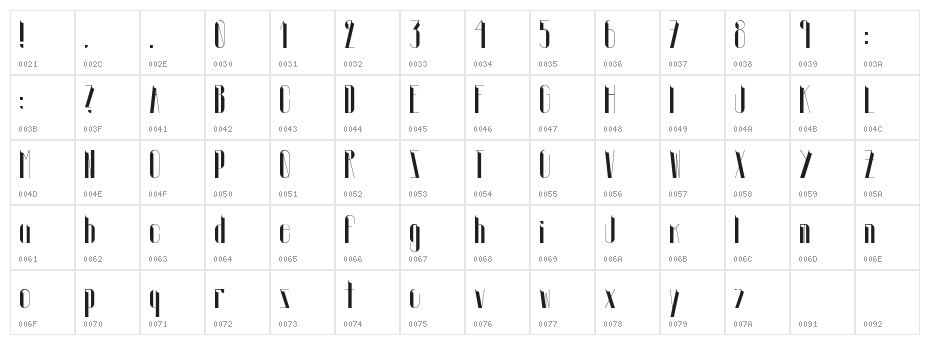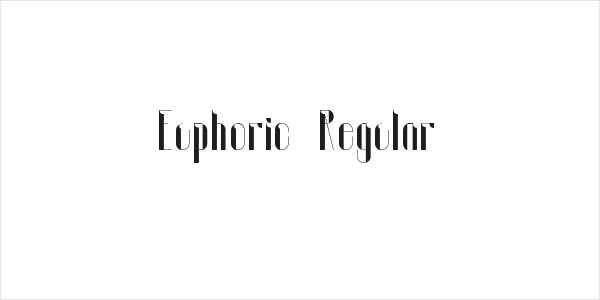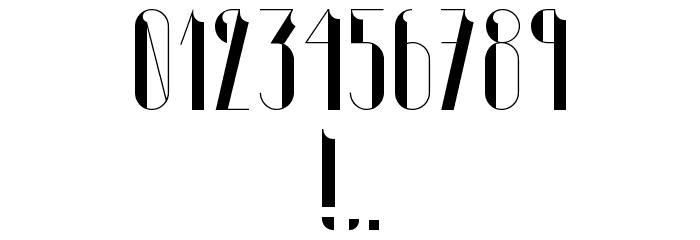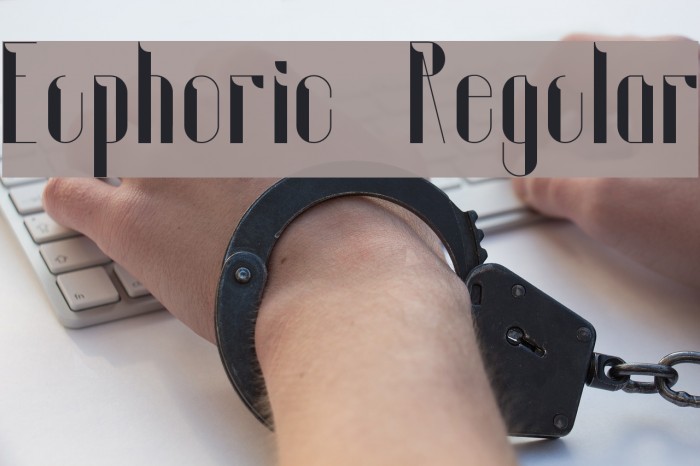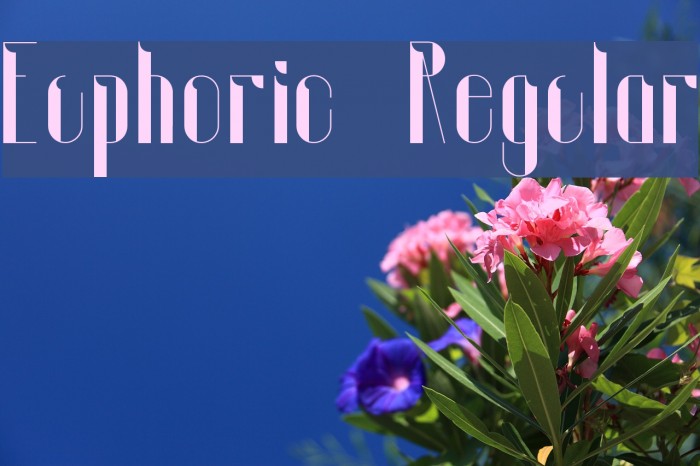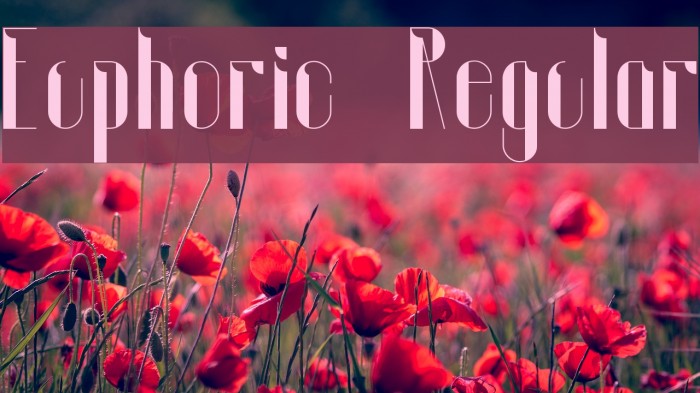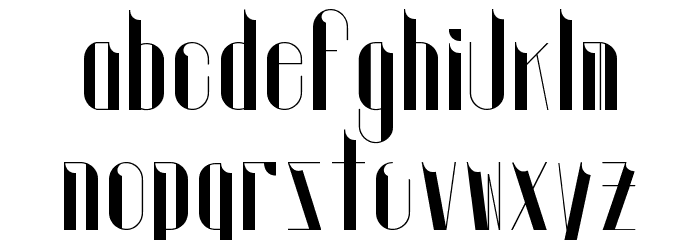
Euphoric Regular Font
Euphoric Regular Description
This font features a striking and modern design with a high contrast between thick and thin strokes, giving it a dynamic and bold appearance. The characters are tall and narrow, with sharp angles and clean lines that create a sense of elegance and sophistication. The uppercase letters are particularly distinctive, with unique shapes that make them stand out. The lowercase letters maintain the same aesthetic, ensuring consistency across text. The numbers and special characters are designed to complement the overall style, making this font versatile for various applications.